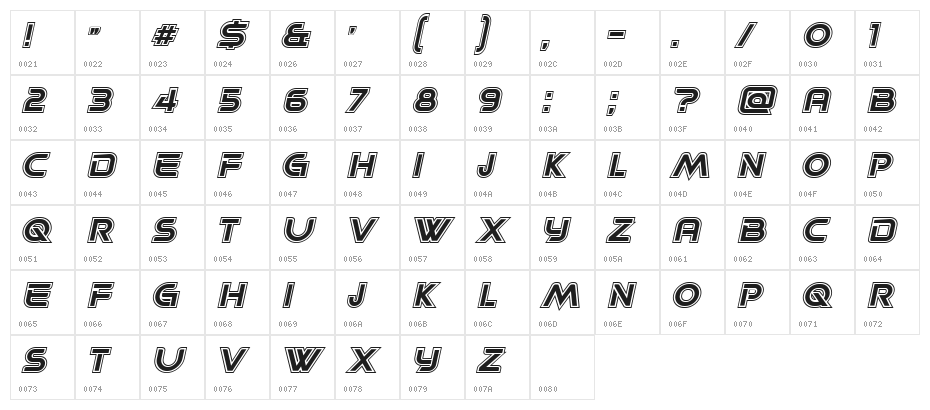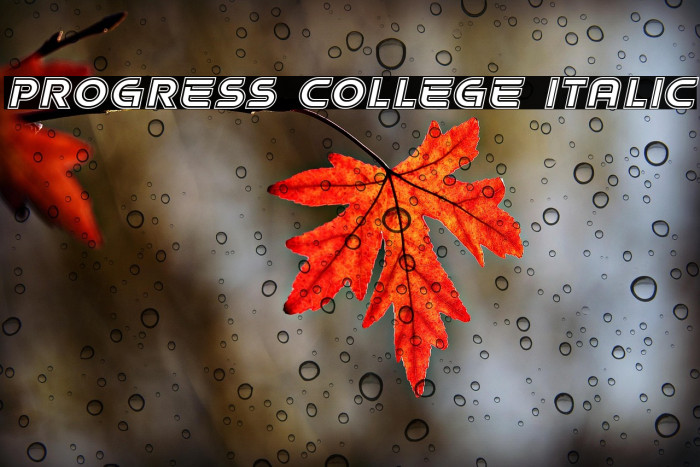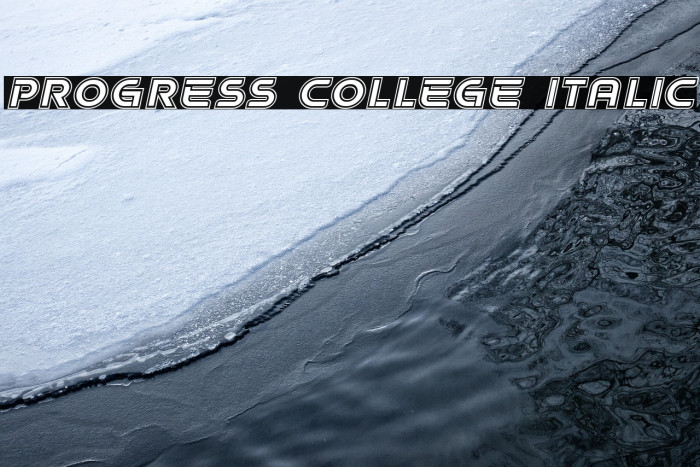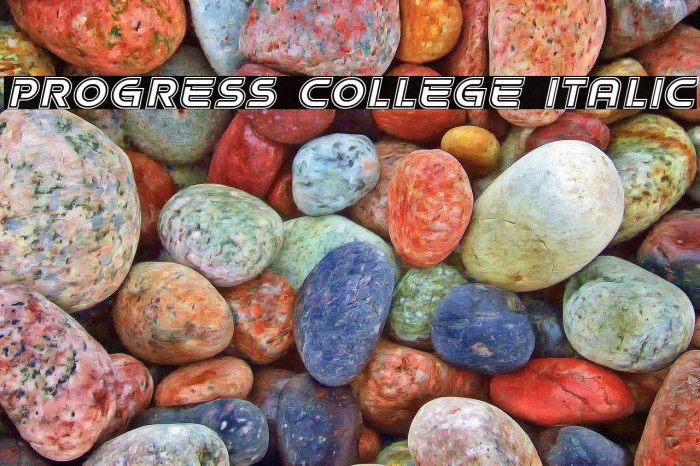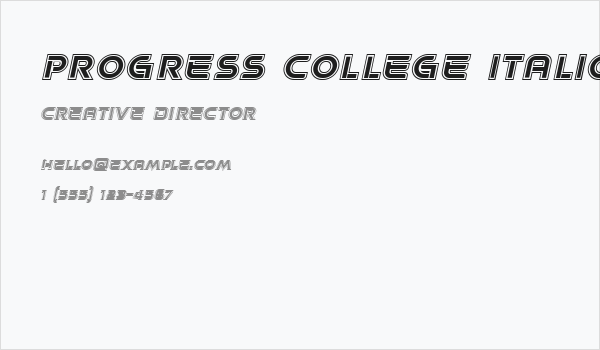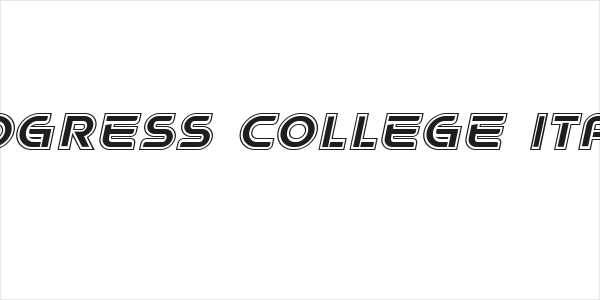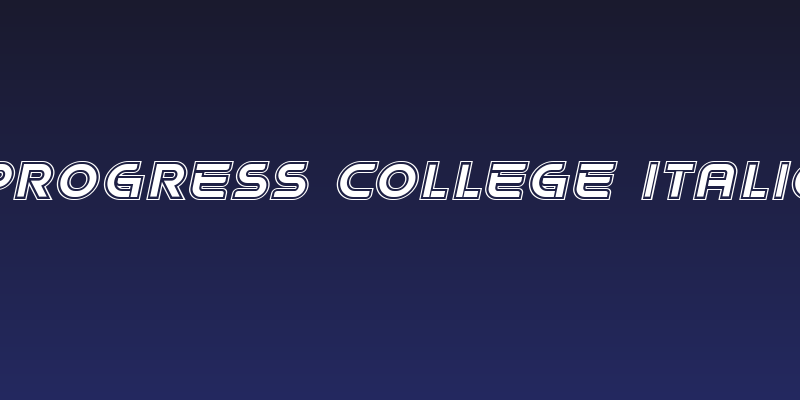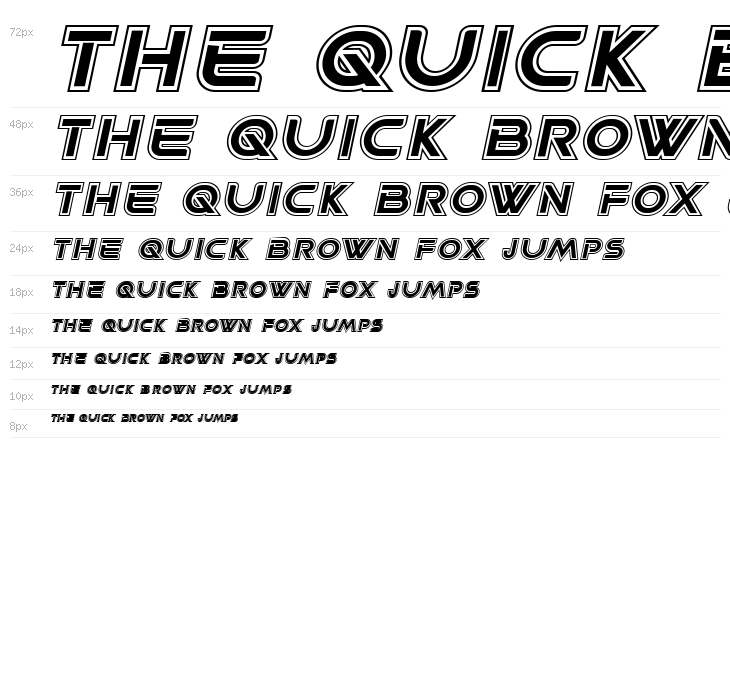
Progress College Italic Font
Progress College Italic Description
This font features a bold, italicized style with a distinct collegiate flair. The characters are outlined, giving them a three-dimensional appearance that stands out. The uppercase letters are strong and angular, while the lowercase letters maintain a consistent style, ensuring readability. Numbers and special characters are designed to match the boldness and style of the alphabet, making them suitable for various applications. The overall look is dynamic and energetic, ideal for projects that require a sporty or academic theme.
| Proposed Projects | Ideal for sports team branding, college event posters, and dynamic logo designs. |